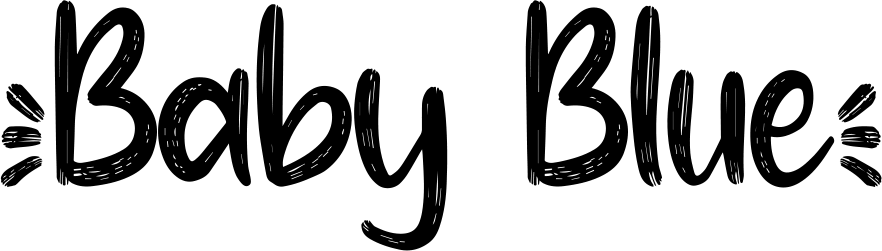
Baby Blue Font
With its fancy and childish design, Baby Blue font will attract all children and teenagers. This handwritten font will help you design many birthday themes, stationery, and notebooks.
Your worries will be solved by downloading this summer font for summer and spring flyers and posters. In addition, you can consider this font for designing many birthday cards, flower shop business cards, and confectioneries ads.